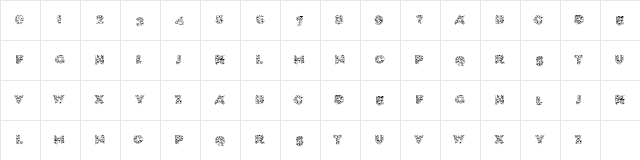
XmasLite Regular Font Preview
XmasLite Regular
XmasLite Regular Font Details
| Foundry | Xerographer Fonts |
| Designer | Xerographer Fonts Max Infeld |
Design Context for XmasLite Typeface
XmasLite is a composed and adaptable typeface that performs quietly and consistently across a wide range of design contexts.